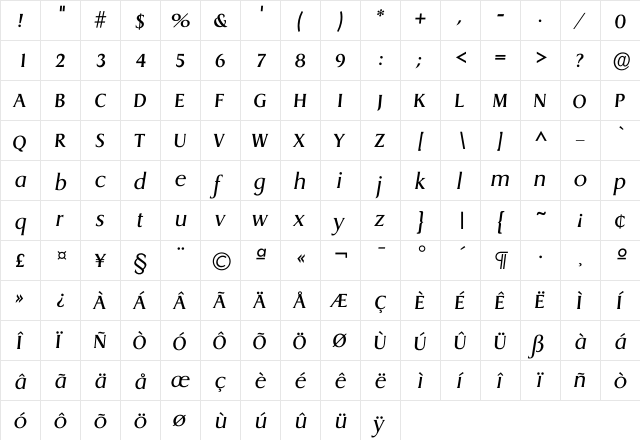
Idragon Regular
Design Context for Idragon Typeface
Idragon takes a measured approach to typography — its balanced proportions and neutral character make it a reliable workhorse for both digital and print work.
Pro Tip: Use Idragon in both headline and body roles to test its range before committing to a single application.